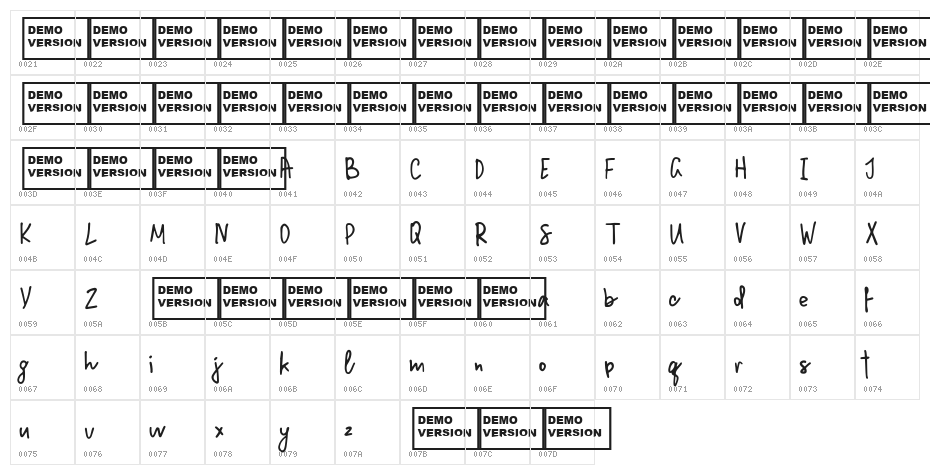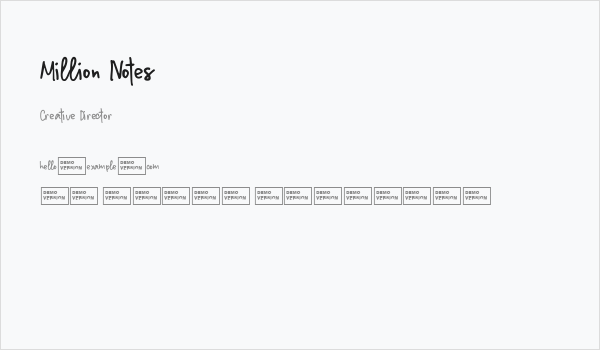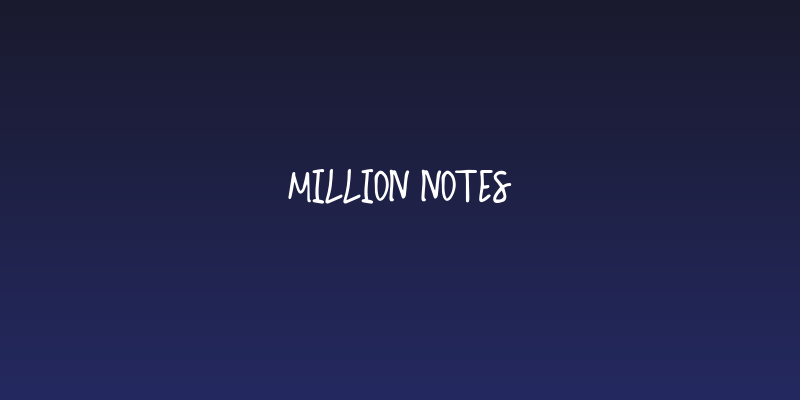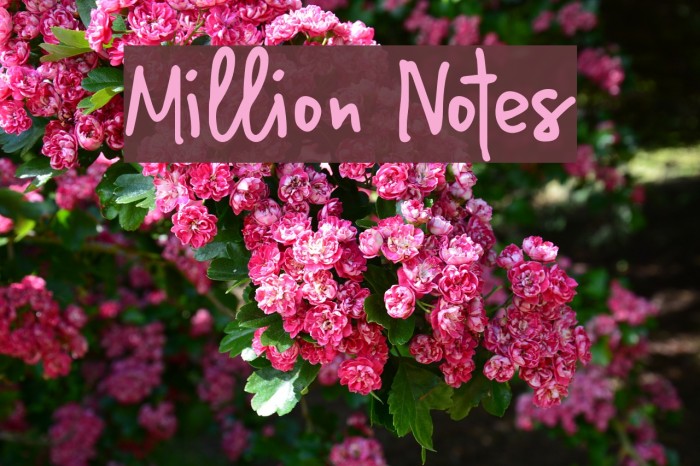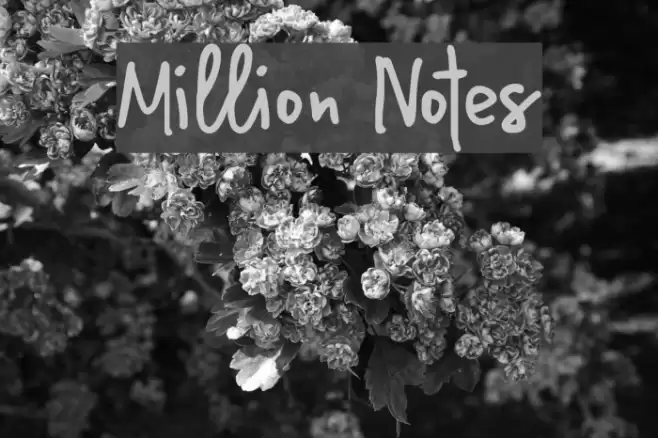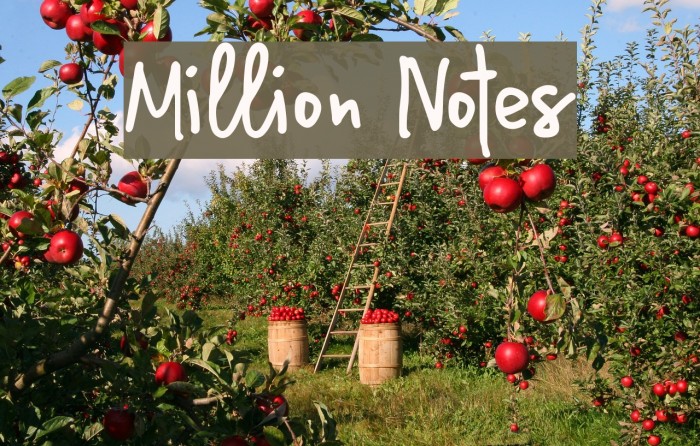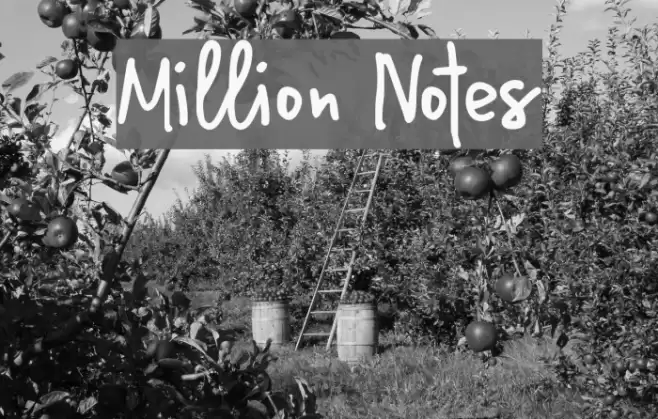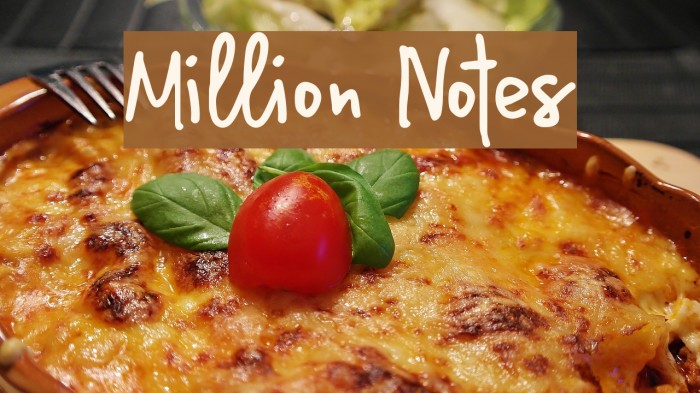
Million Notes Font
Million Notes Description
This font features a playful and casual handwritten style, characterized by its irregular strokes and organic flow. The uppercase letters are bold and slightly condensed, giving a strong presence, while the lowercase letters maintain a more relaxed and fluid appearance. The overall design is informal, with a touch of whimsy, making it suitable for creative and artistic projects. The font's unique personality is enhanced by its uneven baseline and varying stroke widths, which add to its charm and authenticity.
| Width | Condensed |
| Overall Style | Casual |
| Use Case | Logos, Invitations, Creative projects |
| Proposed Projects | Ideal for greeting cards, invitations, personal branding, and creative projects that require a personal touch. |